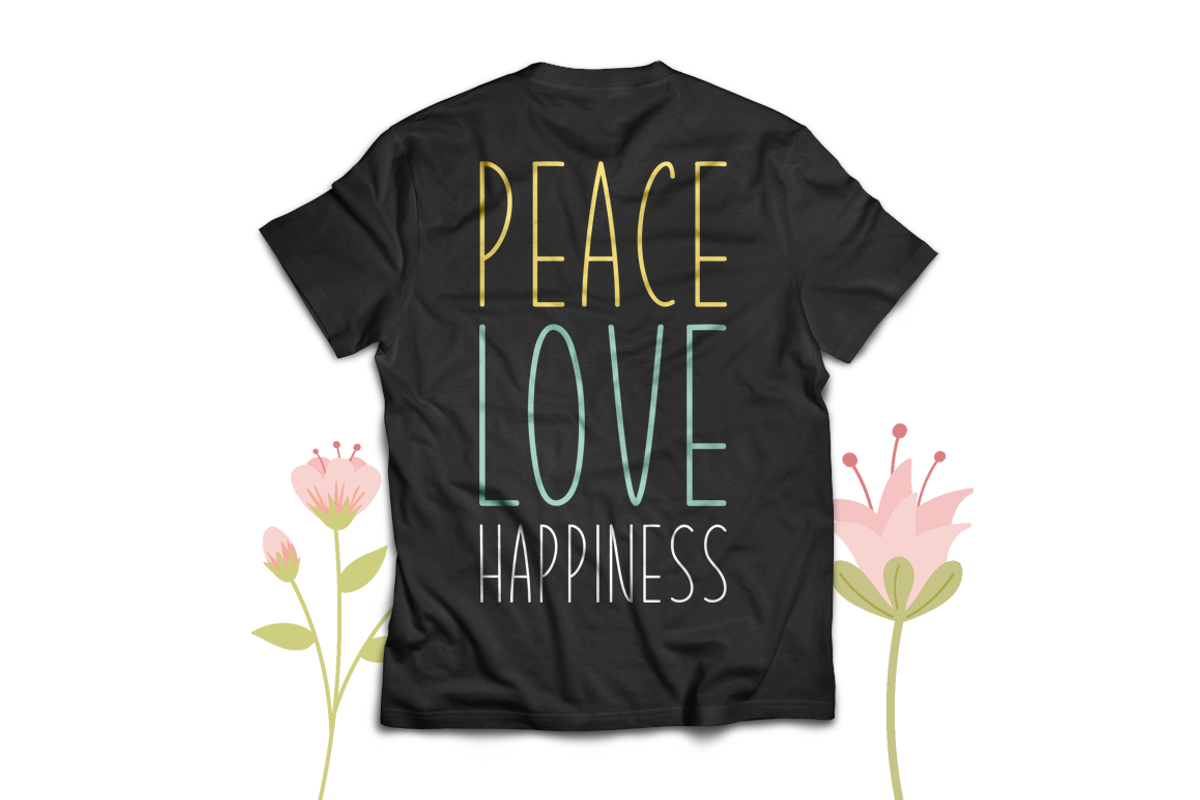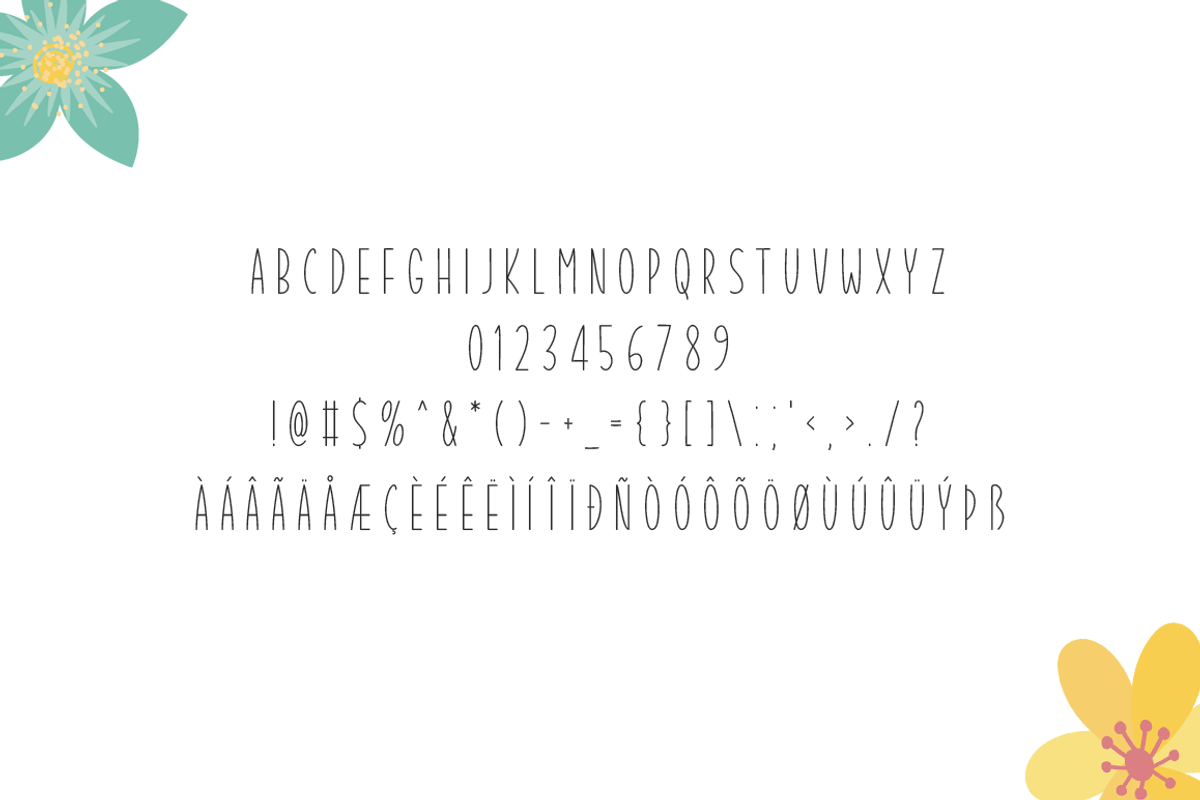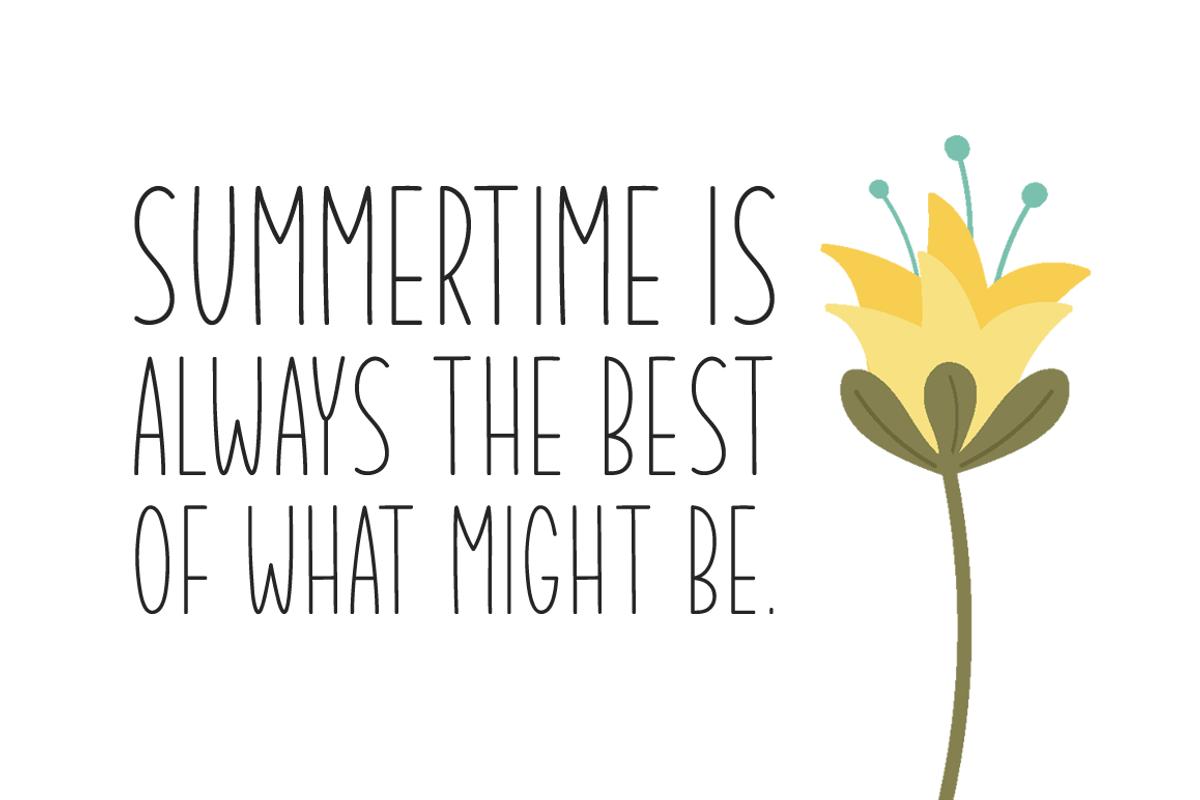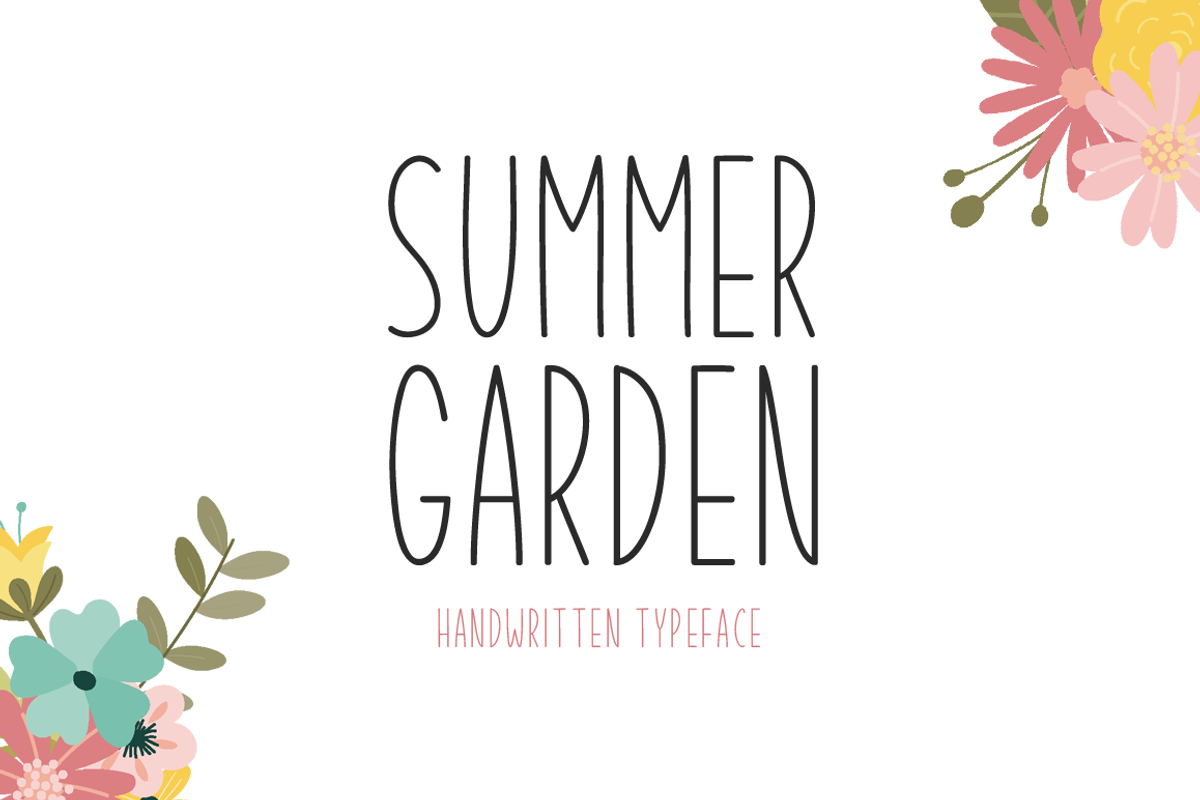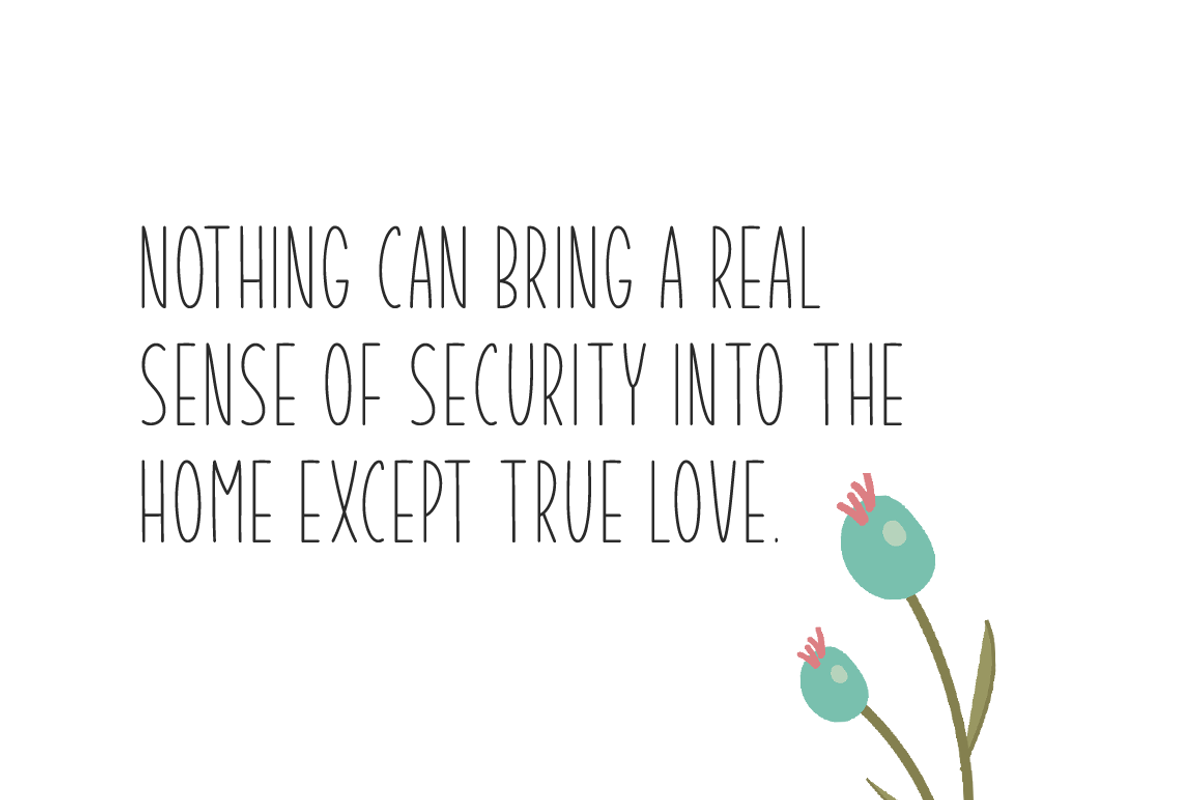
Summer Garden Typeface
Introducing Summer Garden!
Summer Garden is a brand new handwriteen font. Summer Garden is perfectly suited for stationery, logos, t-shirt, paper, print design, website header, photo frame, flyer, music cover, poster, image slider, and much more.
Includes a range of multilingual support